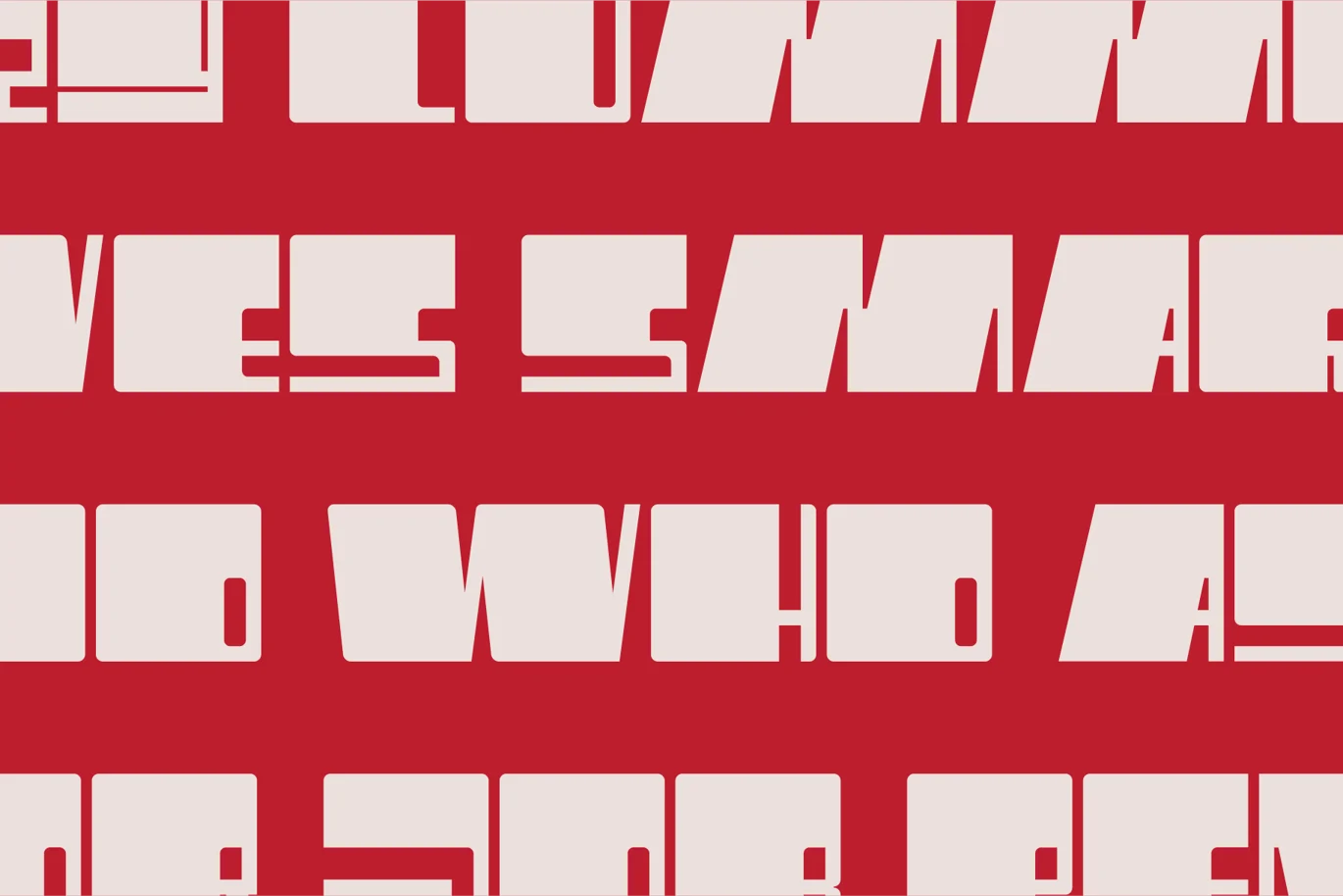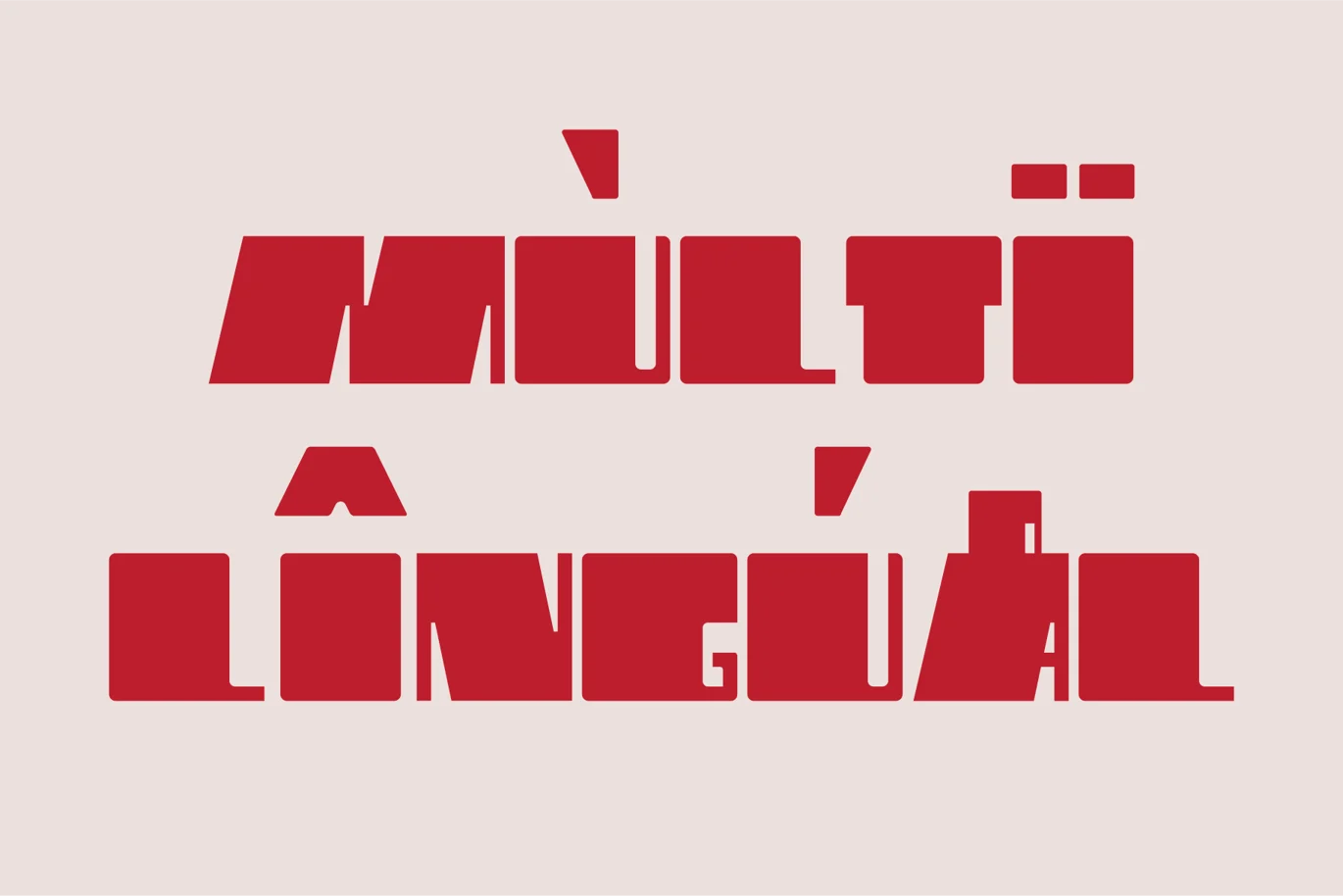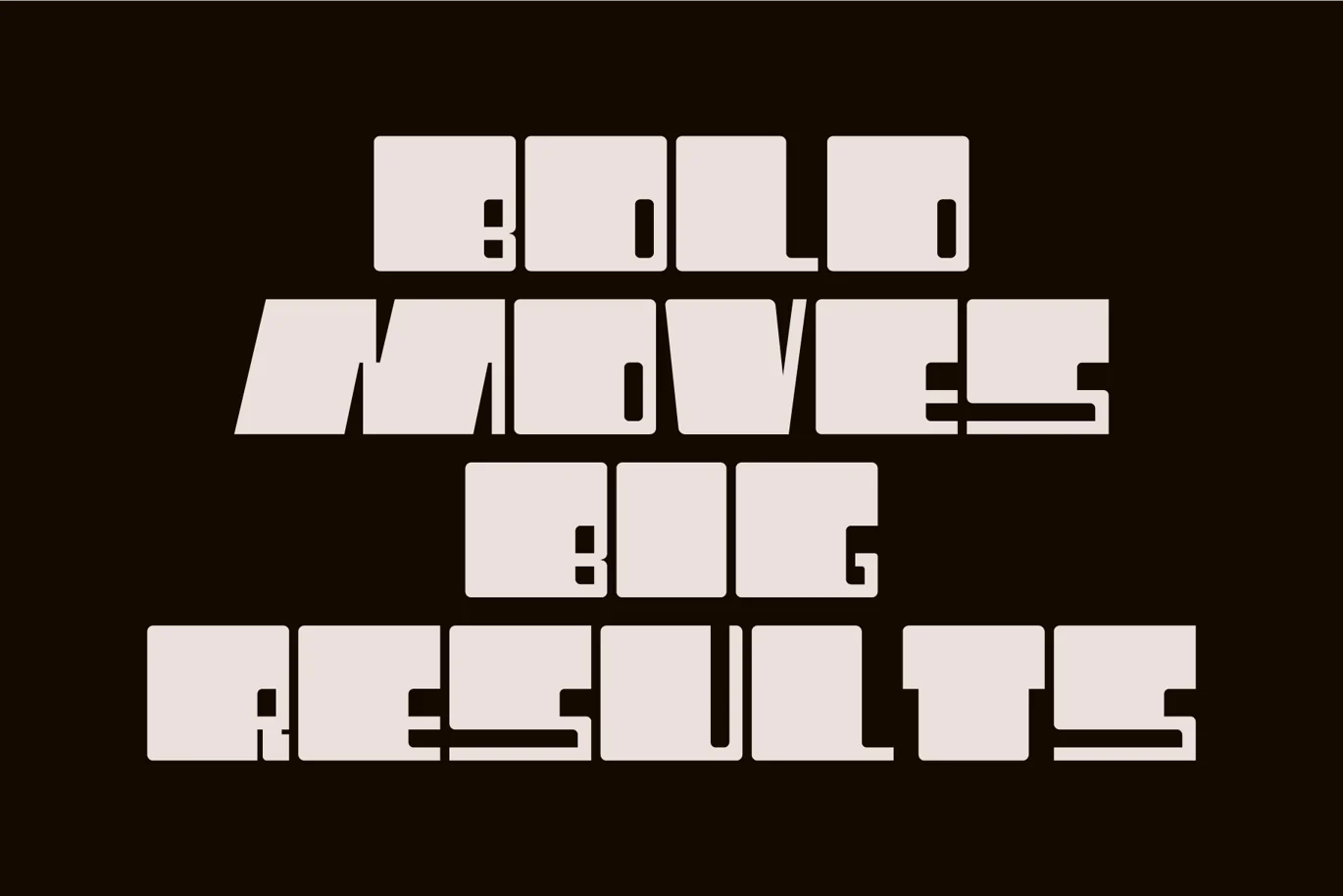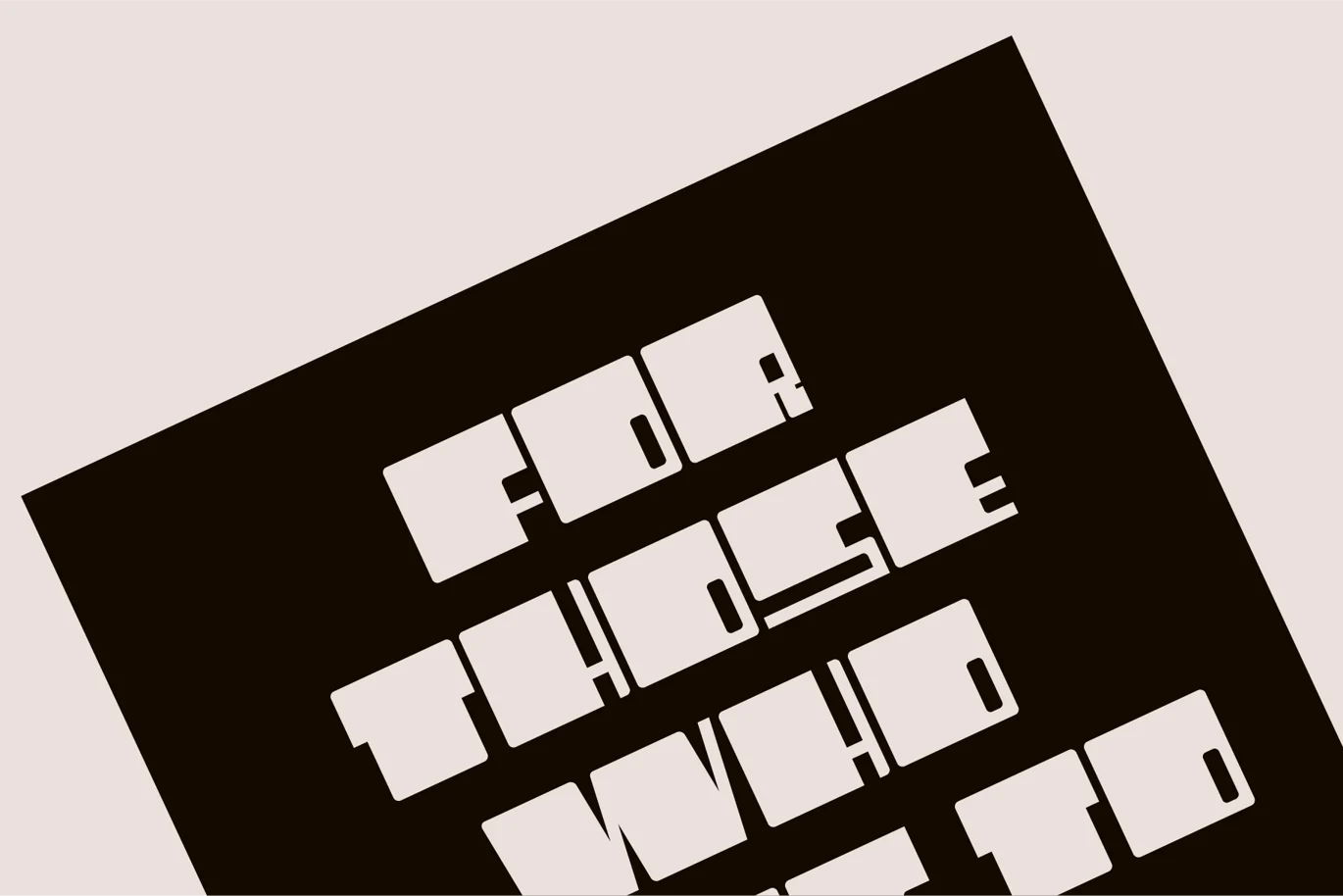
Derion – Bold Display Font
Derion is a bold and dynamic typeface, designed to make a strong statement in any design. With its clean lines and sturdy structure, it’s perfect for headlines, branding, and impactful visual identities that demand attention.